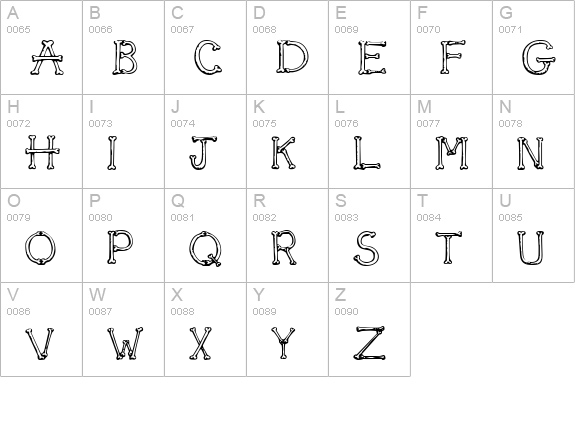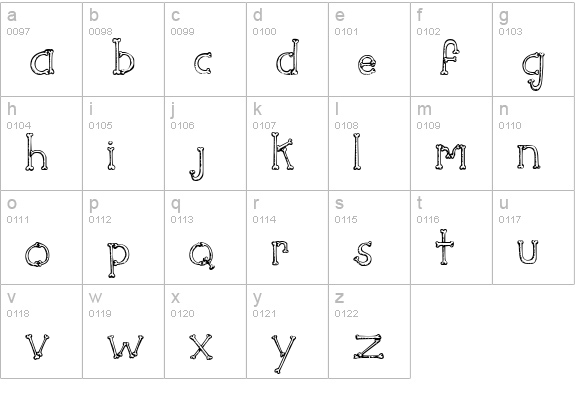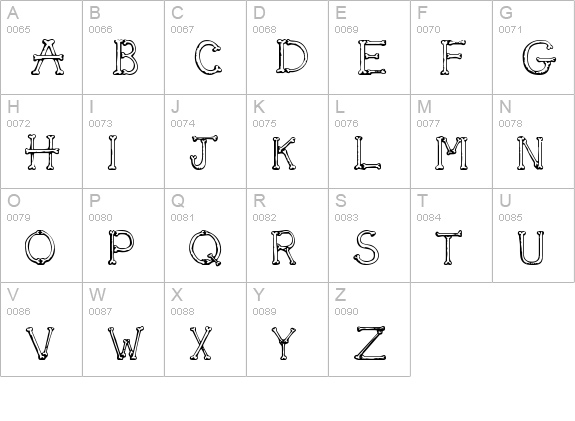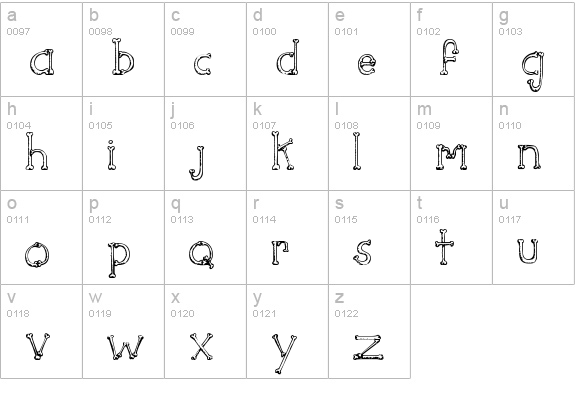
SketchBones Font Details
Introducing SketchBones, a unique and captivating font that brings a playful twist to typography. This font is the perfect choice for those seeking a balance between creativity and legibility. With its hand-drawn appearance and slightly irregular lines, SketchBones adds a touch of whimsy to any design project. Featuring a wide range of characters, including uppercase and lowercase letters, numbers, and punctuation marks, SketchBones offers endless possibilities for your creative endeavors. Whether you're designing a logo, poster, or website, this font is sure to make a statement and leave a lasting impression. What sets SketchBones apart is not only its artistic flair but also its versatility. It can effortlessly adapt to various themes and genres, whether you're going for a fun and playful vibe or a more edgy and grunge aesthetic. This font truly knows how to bring your ideas to life and add that extra touch of personality. But what makes SketchBones even more remarkable is that it is available for free! Yes, you heard that right. You can easily download this font at FontsMarket.com without having to spend a dime. This means that you can enjoy the beauty and creativity of SketchBones without breaking the bank. So why wait? Dive into the world of SketchBones and let your imagination run wild. Whether you're a seasoned designer or just getting started, this font is sure to become your go-to choice for adding that extra flair to your projects. Download SketchBones today and unlock a whole new level of creativity and expression.